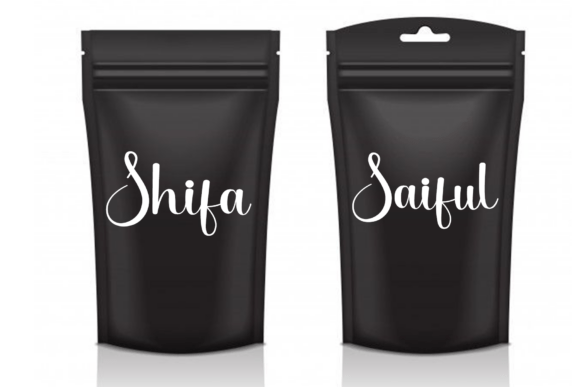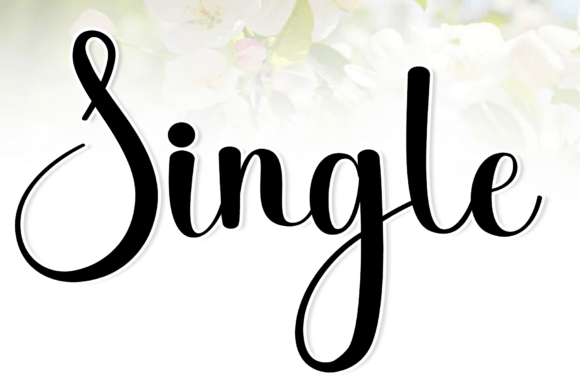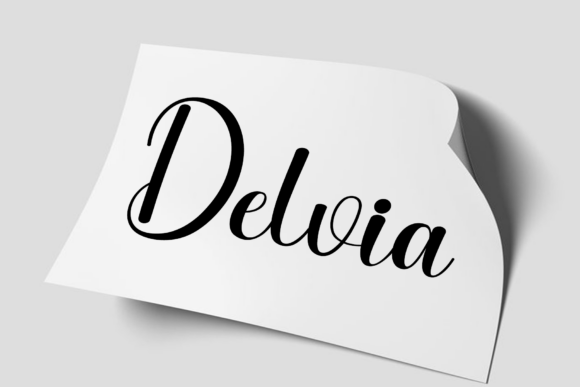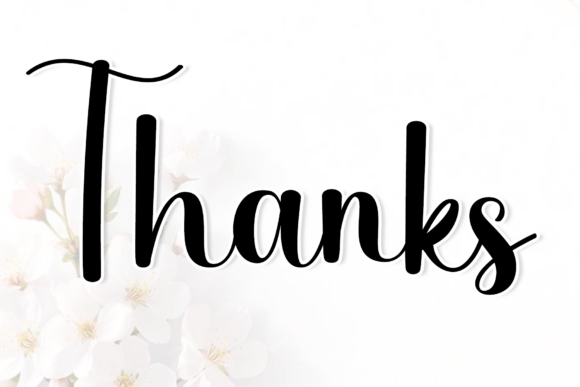
Introduction to Jihans Font
Remember that moment when you’re working on a creative project and you stumble upon the perfect font? The one that brings your design to life and makes it truly special? For designers, finding the right font can be a game-changer. It’s the difference between a good design and a great one.
One such font that has been making waves in the design community is the Jihans Font. This lovely and timeless handwritten font is a design resource that every creative project needs. With its unique and beautiful touch, it’s perfect for creating eye-catching logos, branding, and quotes that will leave a lasting impression.
Key Features of Jihans Font
- High-quality, professional font suitable for various creative projects, including digital designs and print materials.
- Comes with a transparent background, allowing designers to easily integrate it with their desired background or texture.
- Designed to be scalable, ensuring it looks great in various resolutions and sizes, from small titles to large headings.
- Perfect for designers looking for a unique and stylish design resource, adding a touch of elegance to their work.
- Includes a wide range of characters, including Latin, Cyrillic, and Greek alphabets, making it suitable for multi-language designs.
Honest Review: Jihans Font
As a designer, I’ve had the chance to work with numerous fonts for various creative projects. Jihans Font caught my attention with its modern and elegant design. I decided to dive deeper and see if it lives up to its promise.
What works well: ✨ Jihans Font offers a high quality and sleek design that can elevate any design resource. The font is available for free download, which is a major plus for designers on a budget. Additionally, the transparent background makes it easy to integrate into any project.
- Wide range of weights and styles
- Highly legible and readable
However, there are some limitations: ⚠️ Jihans Font may not be the best choice for projects that require a lot of customization. The font’s design is quite straightforward, and it may not offer the level of sophistication that some designers are looking for.
Overall impression: Jihans Font is a solid addition to any designer’s toolkit. While it may not be the most versatile font, it’s perfect for projects that require a clean and modern look. With its high quality design and free download, it’s definitely worth checking out.
Tips for Getting the Most Out of Jihans Font
For optimal results, use Jihans Font in conjunction with a transparent background to create a clean and modern design. Experiment with different font sizes and styles to achieve the desired look. You can also combine Jihans Font with other high-quality design resources to create a unique and eye-catching design.
Jihans Font is ideal for a variety of creative projects, including logo designs, business cards, and social media graphics. Its clean and modern design makes it a great choice for presentations and documents, while its free download option makes it an accessible design resource for anyone.